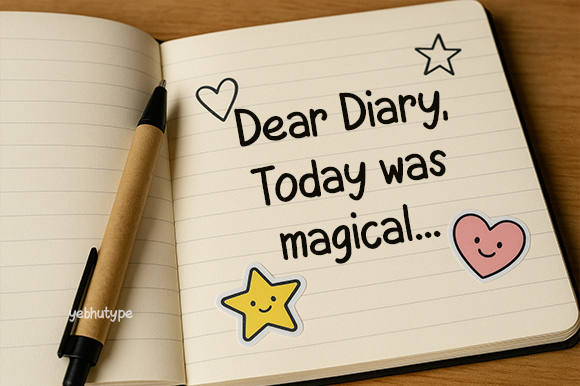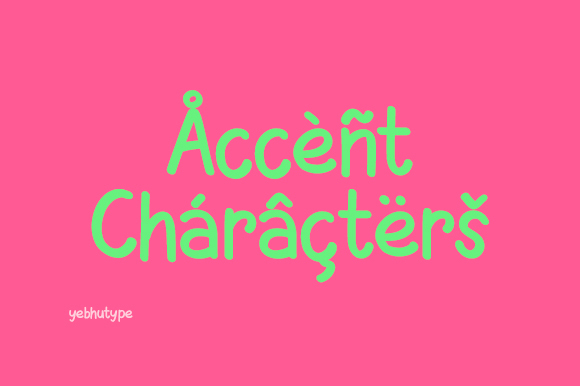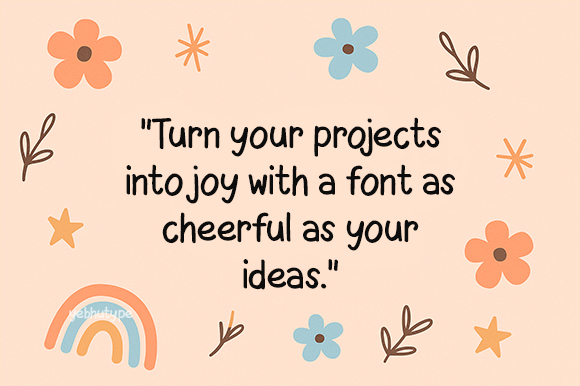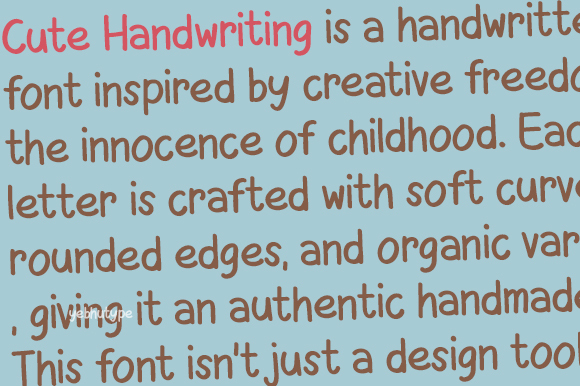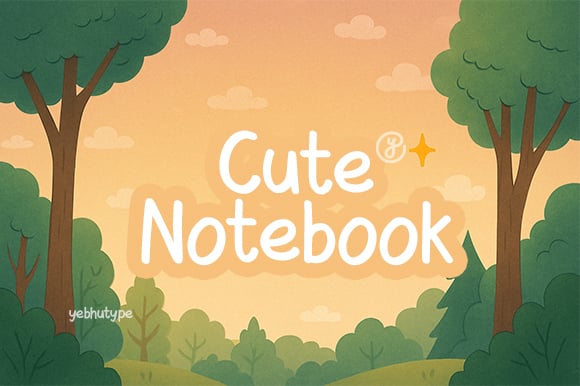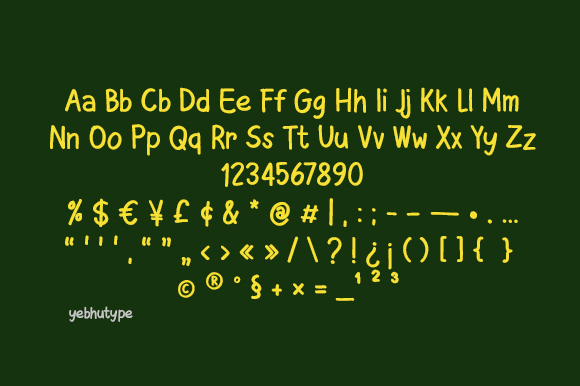
Cute Notebook: A Handwritten Hug for Every Creative Moment
Introducing Cute Notebook, a whimsical handwritten typeface that captures the heart of doodles, daydreams, and delightful imagination. Carefully crafted to reflect the joy of a well-loved notebook page, this typeface brings a charming blend of playfulness and sincerity to every design. With its soft curves, friendly strokes, and casual rhythm, Cute Notebook isn’t just a font—it’s a heartfelt expression of creativity.
The Heart of Cute Notebook
Cute Notebook is a celebration of innocence, authenticity, and personal expression. Inspired by the spontaneous sketches and sweet scribbles of notebook margins, it radiates warmth and familiarity. Whether you're designing for kids or simply embracing your inner child, Cute Notebook delivers that nostalgic, handwritten touch that feels both comforting and creative. It’s like a friendly note passed in class—full of charm, personality, and a little bit of magic.
Key Features
📝 Authentic Handwritten Style
Cute Notebook feels natural and spontaneous, just like handwriting in your favorite journal. Its balanced imperfection gives it an inviting, relatable feel.
🧸 Soft, Rounded Letterforms
With plush curves and pillowy shapes, each letter offers a gentle, approachable vibe—perfect for warm, friendly communication.
🎨 Playfully Imperfect
Subtle inconsistencies in each glyph make the font feel alive and personal. It's this handcrafted spirit that sets Cute Notebook apart from the ordinary.
📚 Highly Legible & Versatile
Despite its casual tone, Cute Notebook is clear and easy to read at various sizes, making it ideal for both headlines and body text.
🔤 Complete Character Set
Includes uppercase, lowercase, numerals, and essential punctuation for cohesive, expressive typography across all your creative projects.
Mood & Personality
Cute Notebook is cheerful, warm, and irresistibly sweet. It’s the typographic embodiment of childhood memories, cozy mornings, and creative afternoons spent journaling or sketching. Whether you're aiming to spark joy, create connection, or just add a bit of whimsy, Cute Notebook brings a positive, lighthearted tone that’s hard to resist.
Perfect For
📘 Children’s Books & Learning Materials
Make reading and learning fun with Cute Notebook’s friendly charm. Perfect for titles, captions, or storybook dialogue.
🎉 Greeting Cards & Party Invitations
From birthday parties to baby showers, Cute Notebook adds that perfect personal touch that makes every message more heartfelt.
👨‍👩‍👧 Family-Oriented Branding
Toy brands, parenting blogs, and educational products can use Cute Notebook to create an emotional, trustworthy connection with their audience.
📱 Social Media Graphics & Content Creation
Stand out online with a font that feels real, warm, and engaging. Ideal for quote graphics, captions, and creative posts.
🖌️ DIY Projects & Personal Keepsakes
Whether you’re designing planners, stickers, journals, or scrapbooks, Cute Notebook adds a magical, memorable flair to every page.
Why Choose Cute Notebook?
In a world of polished perfection, Cute Notebook brings back the joy of imperfection and the beauty of hand-drawn creativity. It’s sincere, it’s nostalgic, and it’s full of heart. Whether you’re crafting something playful or deeply personal, Cute Notebook makes your message feel more human and heartfelt. Because sometimes, the most powerful designs come from the simplest, most genuine places.
Let Your Designs Speak with Heart
With Cute Notebook, every word feels like a note from a friend—warm, playful, and full of life. Let it inspire designs that bring smiles, stir memories, and spark imagination.
P.S.: Cute Notebook isn’t just a font—it’s a feeling. A little joy. A little wonder. A whole lot of heart.